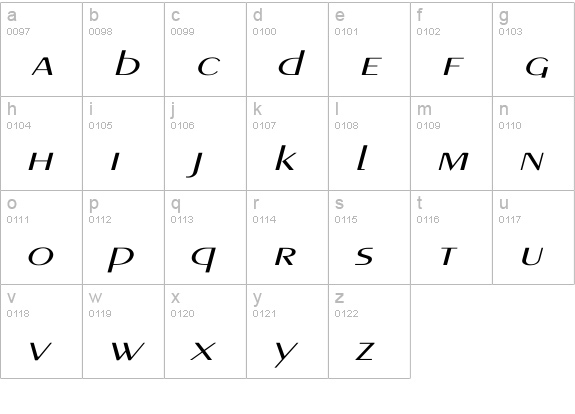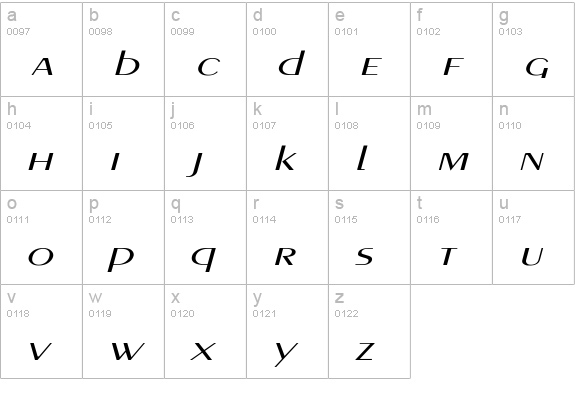
PigNoseTyp Italic Font Details
PigNoseTyp Italic is a distinctive, italic variant in the PigNoseTyp typeface family \xE2\x80\x94 well suited to design and typography projects.
PigNoseTyp Italic font is a stunning and contemporary typeface that adds a touch of elegance and sophistication to any design project. With its sleek and slanted letterforms, this italic font exudes a sense of movement and style, making it perfect for a wide range of applications, from branding and packaging to headlines and invitations. What sets PigNoseTyp Italic font apart is not only its impeccable design, but also its accessibility. This font is available for free download at FontsMarket.com, allowing designers and creatives to easily incorporate it into their work without any financial limitations. Whether you're working on a professional project or simply looking to add a touch of flair to your personal creations, PigNoseTyp Italic font is a versatile choice that will effortlessly elevate your design. Its subtle curves and refined details create a sense of elegance and refinement, making it ideal for projects that require a touch of sophistication. The PigNoseTyp Italic font is highly legible, ensuring that your message is conveyed clearly and effectively. Its slightly slanted letterforms add a dynamic visual element that captures attention and brings a sense of movement to your text. Whether you're using it for headlines, titles, or body text, this font will make a lasting impression. With its timeless appeal and effortless style, PigNoseTyp Italic font is a must-have for any designer's toolbox. And thanks to its availability as a free download on FontsMarket.com, it's easier than ever to incorporate this stunning typeface into your next project. So why wait? Download PigNoseTyp Italic font today and let your creativity soar!